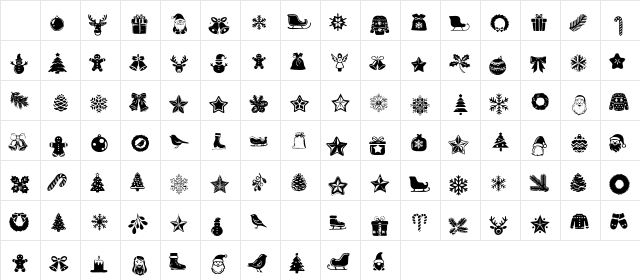
Complete Magical Nordic Symbols PERSON Regular glyph index. Displaying only characters natively supported by Magical Nordic Symbols PERSON Regular font.
Magical Nordic Symbols PERSON is a composed and adaptable typeface that performs quietly and consistently across a wide range of design contexts.